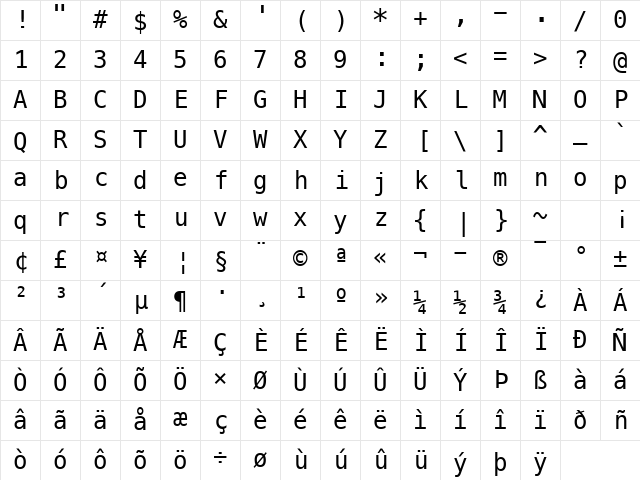
MesloLGMDZ Nerd Font Mono Regular
Foundry: Bitstream
Designer: Jim Lyles
Design Context for MesloLGMDZ Nerd Font Mono
MesloLGMDZ Nerd Font Mono uses fixed-width spacing throughout, giving it the structured, systematic character associated with coding environments and technical documentation.
Pro Tip: Use MesloLGMDZ Nerd Font Mono with slightly increased line-height for extended reading - fixed-width spacing can feel dense in longer passages without extra breathing room.